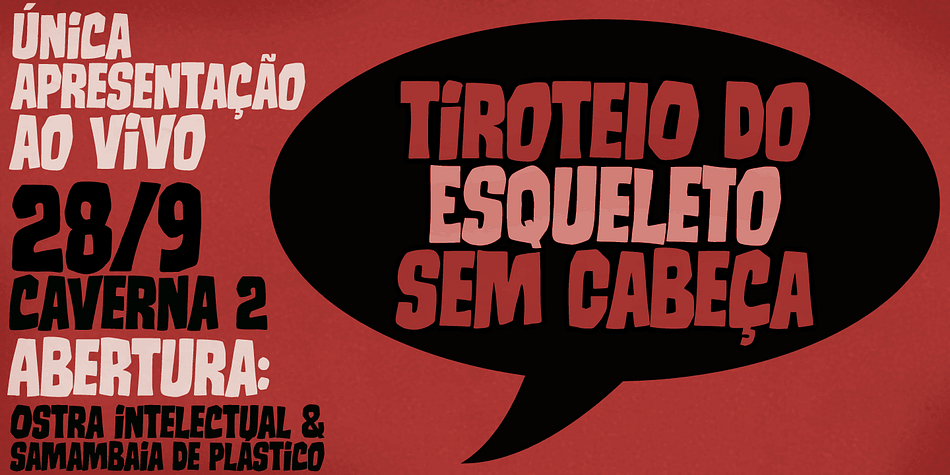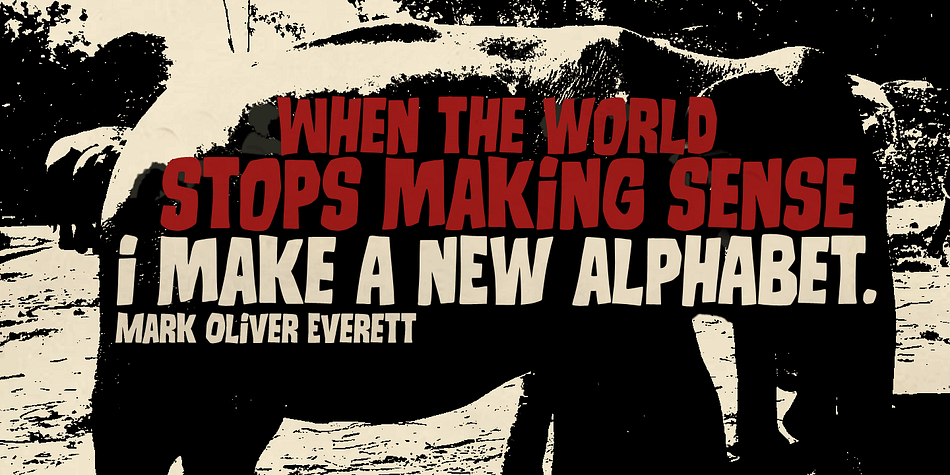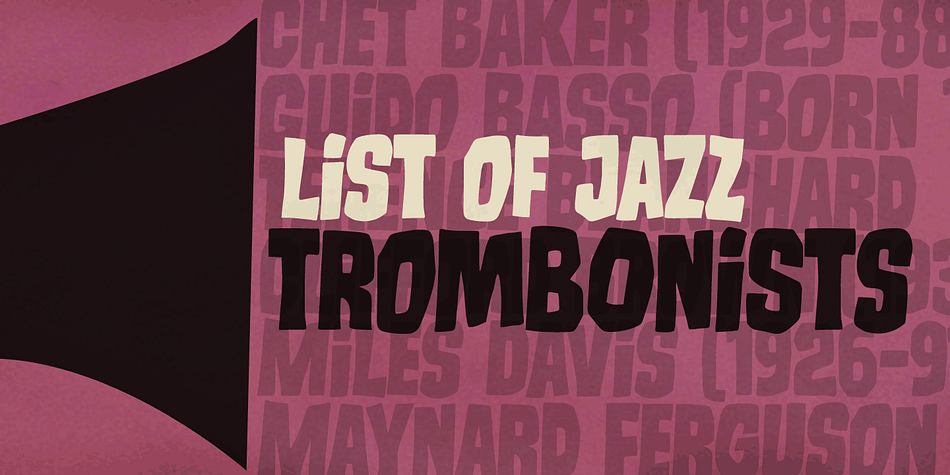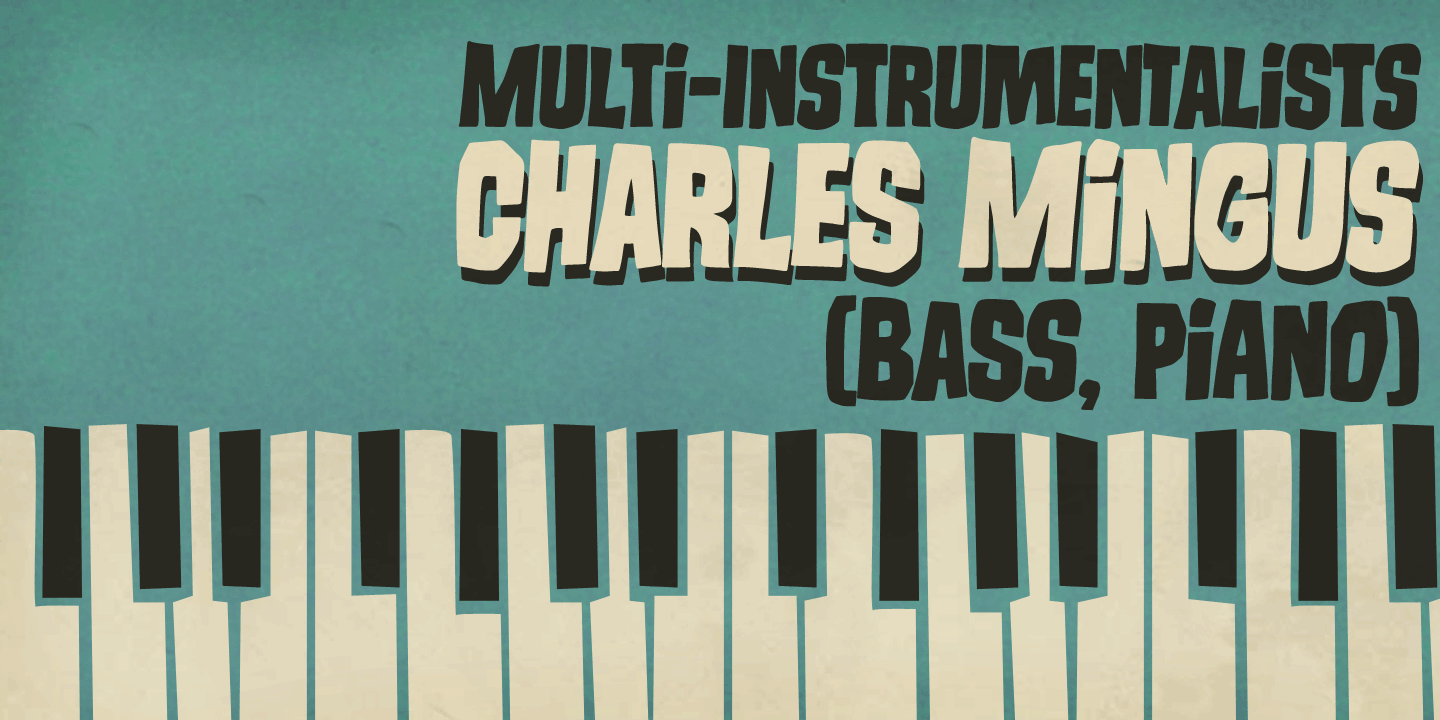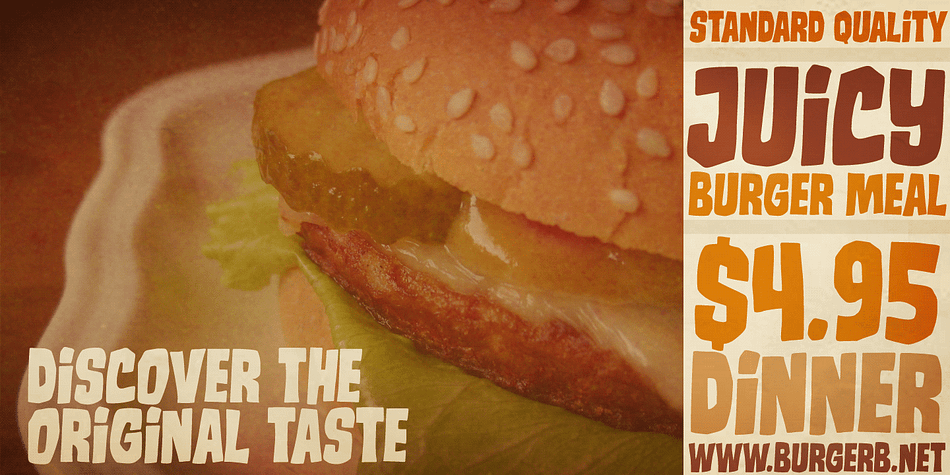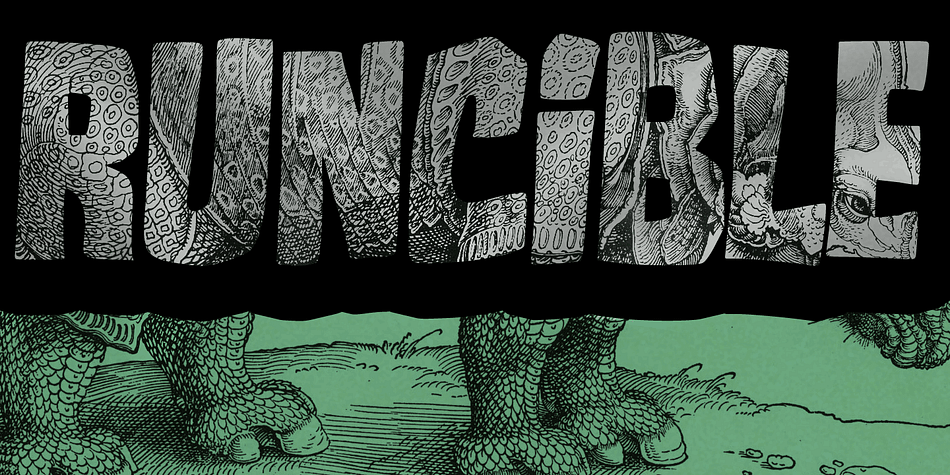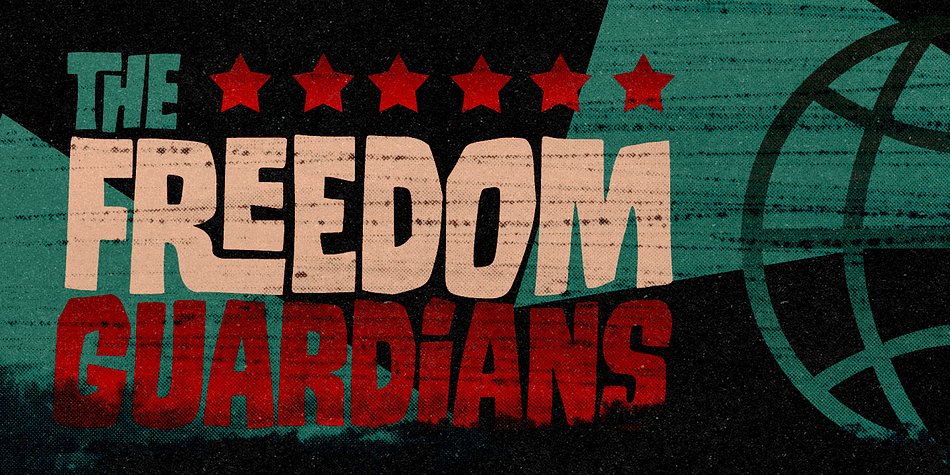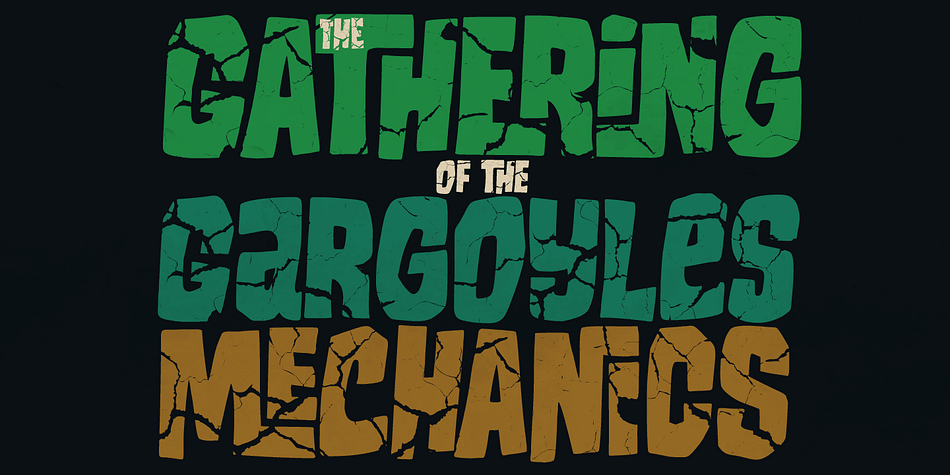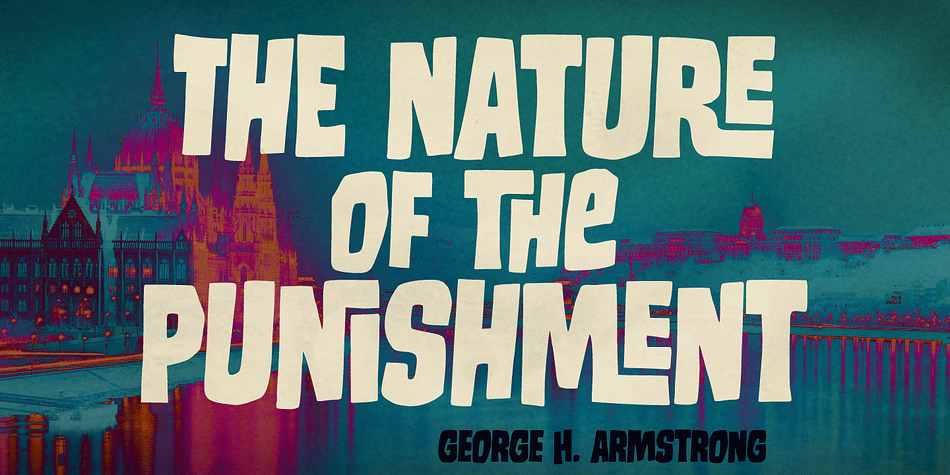
Runcible is a display, grunge and kids font family. This typeface has two styles and was published by PintassilgoPrints.
A runcible font for dolomphius designs. I do not believe you won’t give it a try!